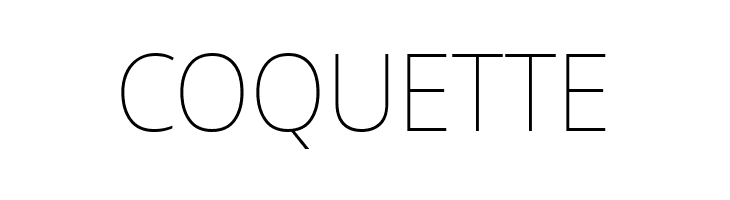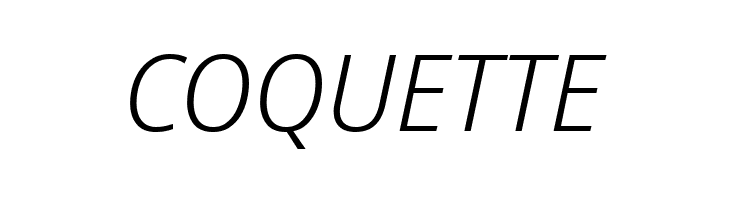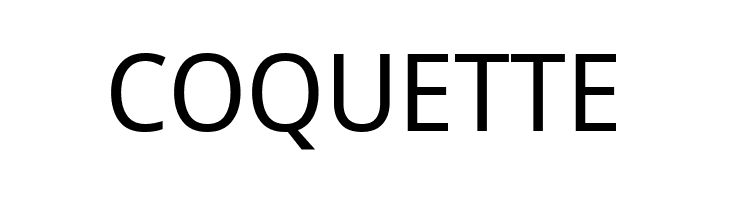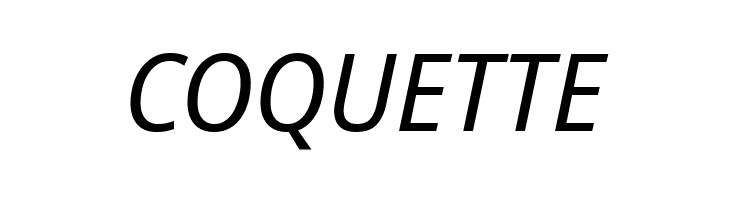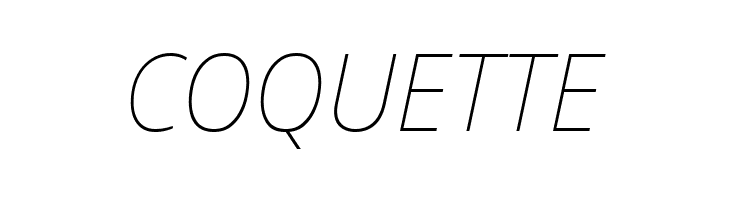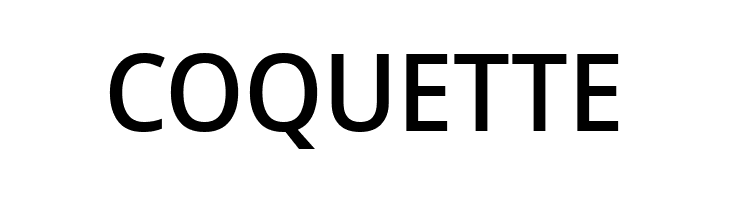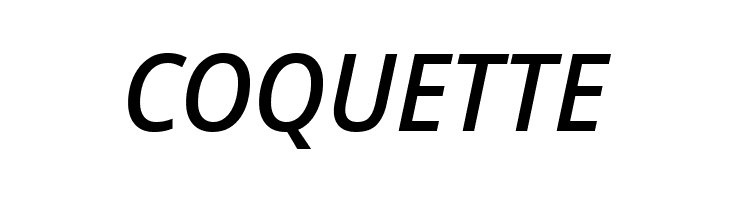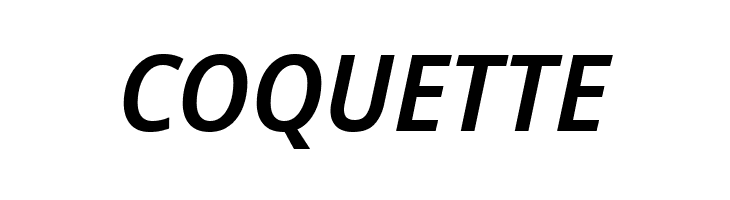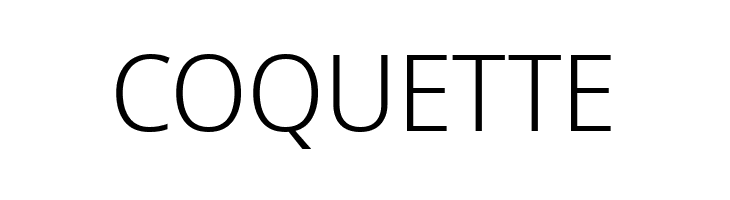
A modern sans-serif font with an italic slant, offering a clean and dynamic look.
A clean, modern sans-serif font with a light weight and balanced design.
A sleek, modern sans-serif font with light weight and italic style.
A modern sans-serif font with clean, geometric letterforms.
A sleek, modern sans-serif typeface with an italicized style and medium weight.
A clean, modern sans-serif typeface with consistent stroke width and balanced spacing.
A clean, modern sans-serif font with a semi-bold weight and balanced proportions.
A modern sans-serif font with semi-bold weight and italic style, offering readability and dynamic appeal.
A modern, thin sans-serif font with clean lines and balanced spacing.
A sleek, thin, and italicized sans-serif font with a modern and elegant design.
A bold, high-contrast serif font with a strong, authoritative presence.
A bold, italic serif font with a classic and authoritative style.
A bold serif font with classic elegance and strong readability.
A bold, italic serif font with a classic and elegant style.
A bold, classic serif font with strong vertical lines and pronounced serifs.
A refined serif font with thin, elegant strokes and subtle serifs.
An elegant, extra light serif font with an italic style.
An elegant serif font with a classic italic style, perfect for sophisticated designs.
A classic serif font with elegant, light strokes and refined serifs.
A light, italic serif font with elegant curves and refined serifs.
A classic serif font with medium weight and balanced readability.
Elegant serif font with medium weight and italic style.
A classic serif typeface with semi-bold weight and elegant serifs, perfect for refined readability.
A classic serif font with semi-bold weight and italic style, offering elegance and readability.
A dynamic, cursive script font with bold, expressive strokes.
A playful, rounded font with smooth curves and a friendly appearance.
A bold, rounded font with a playful and friendly style.
An elegant and flowing script font with artistic flourishes.